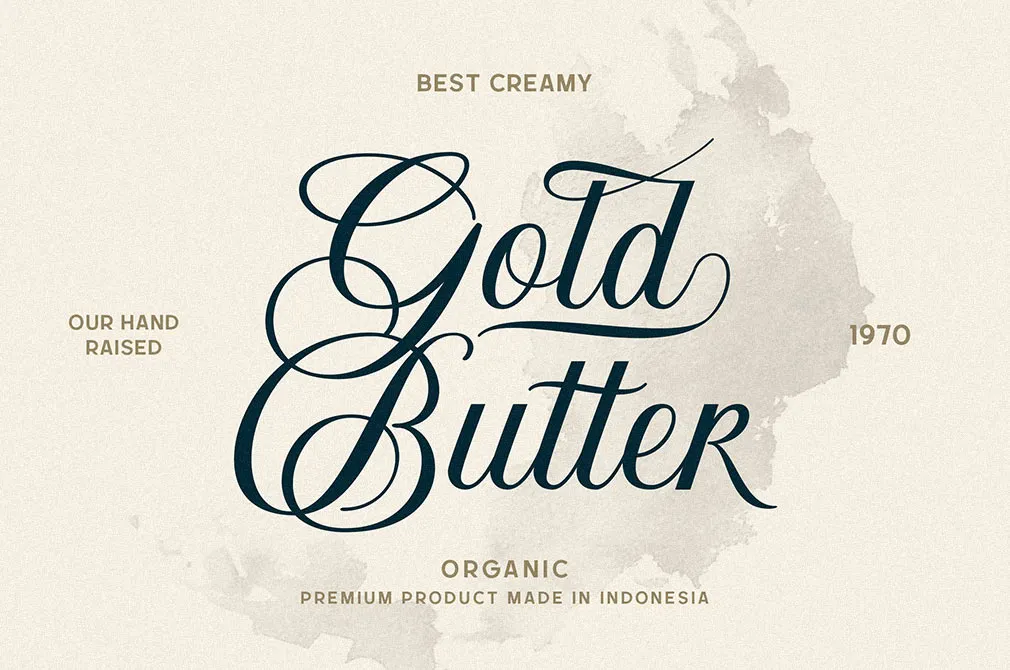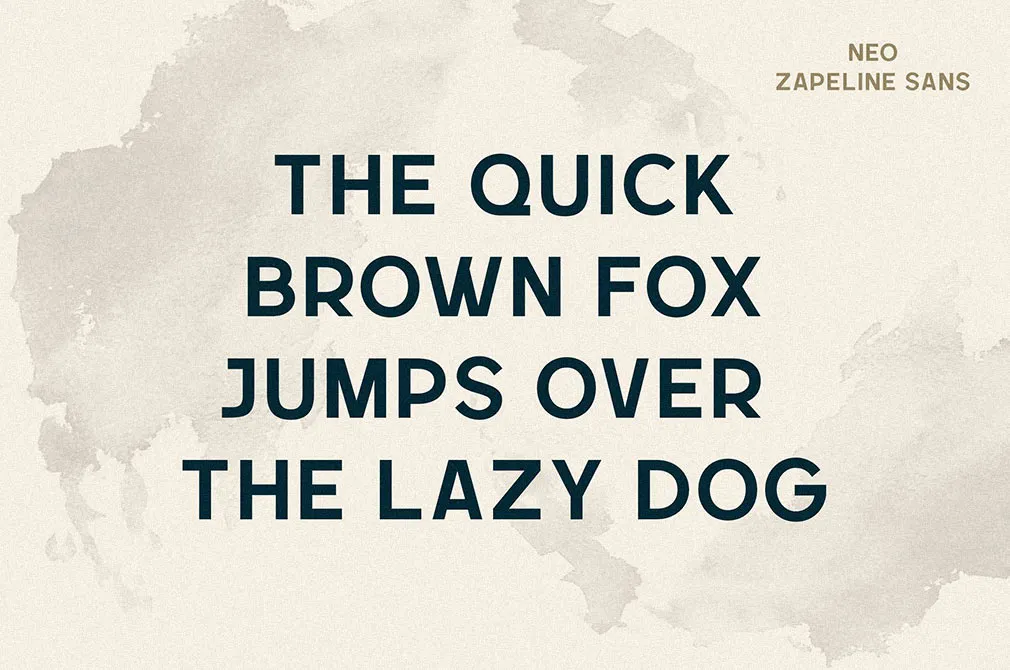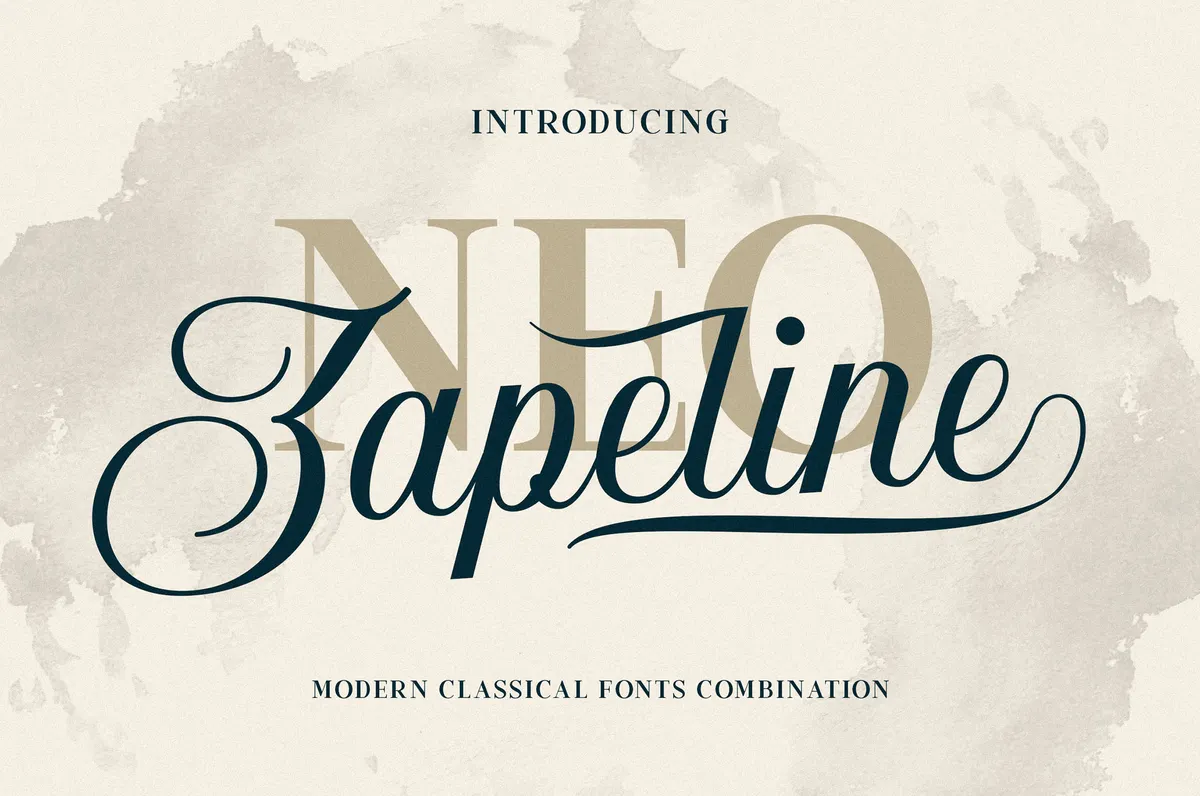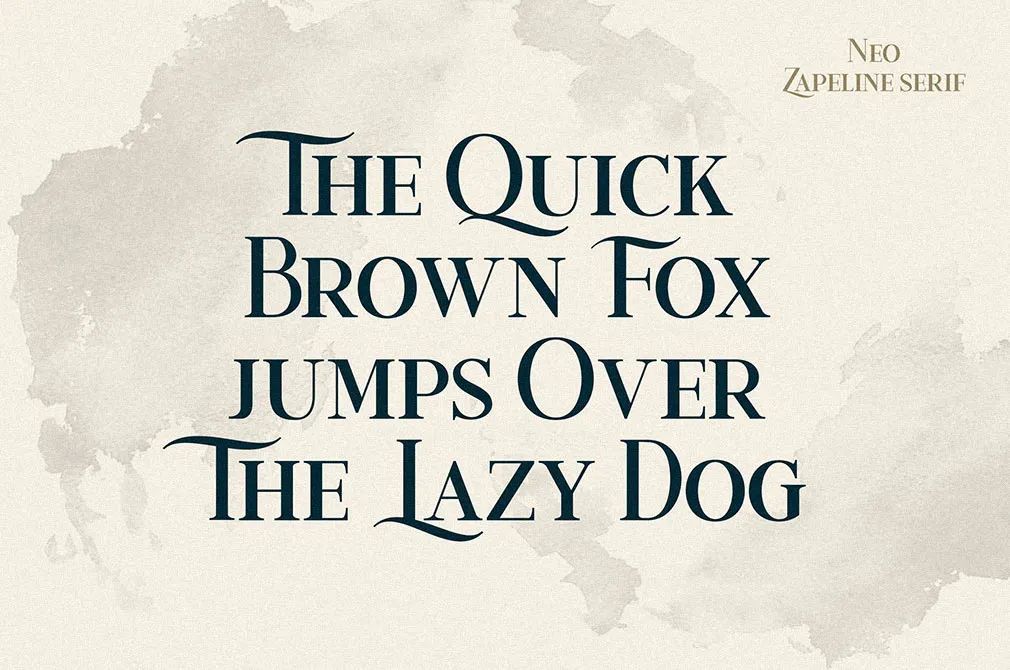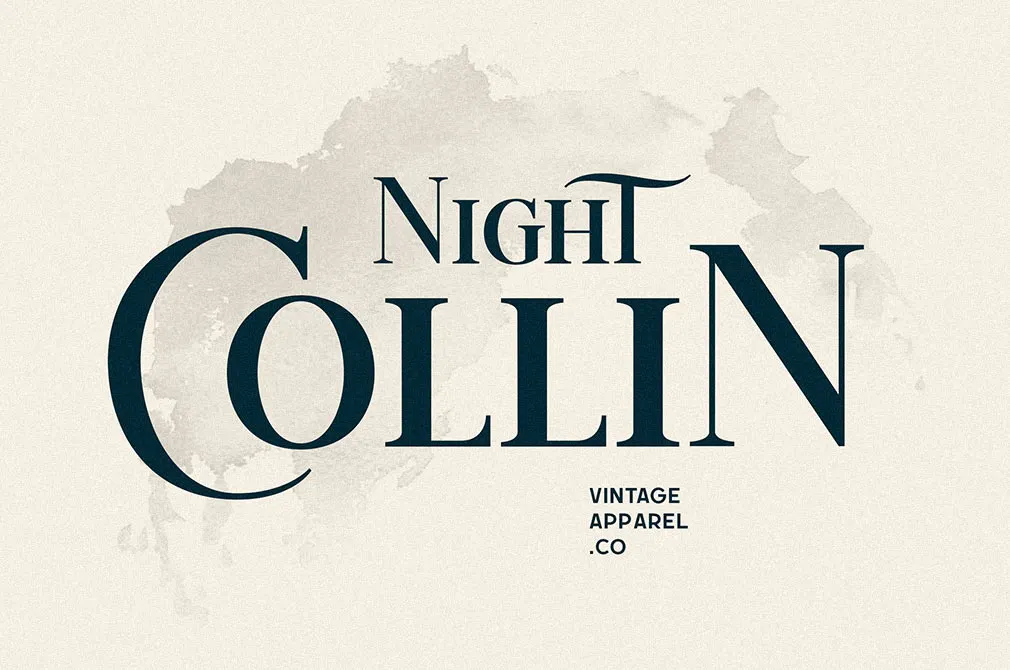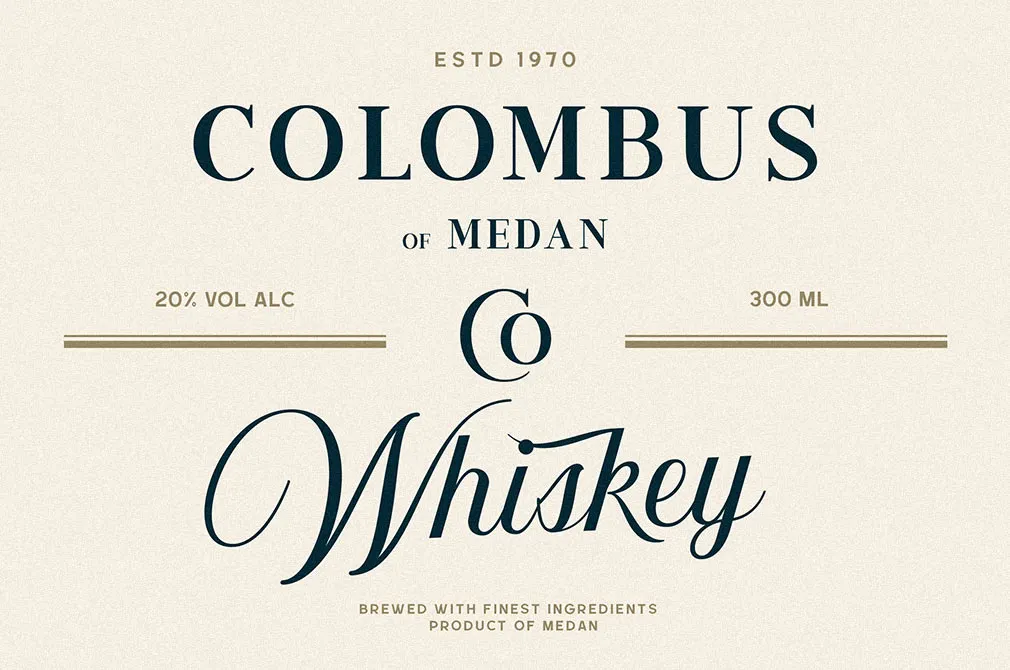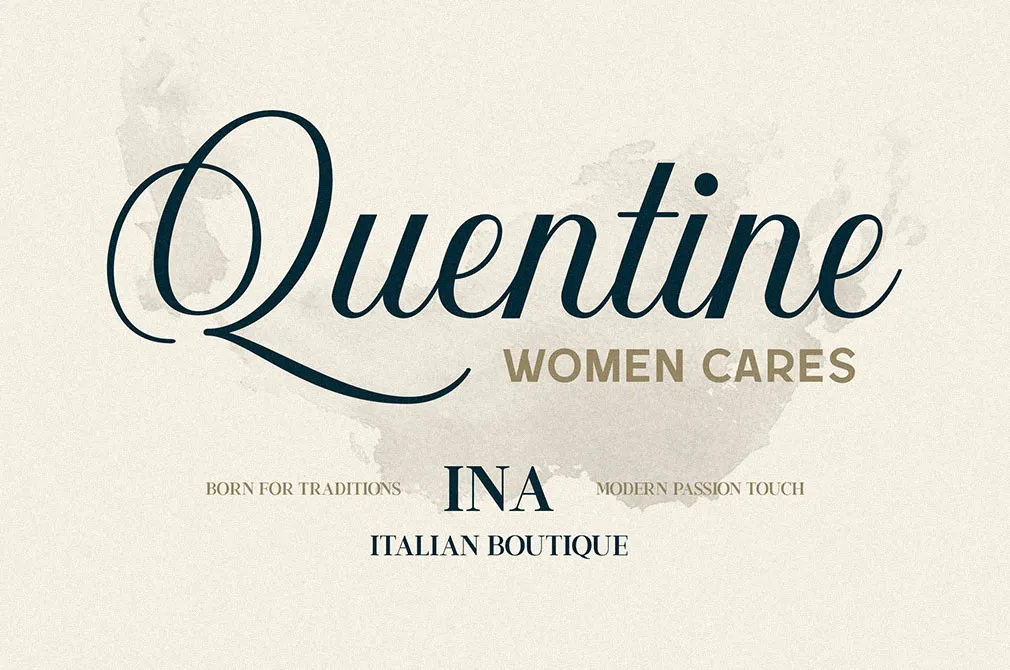
Neo Zapeline Font Family
Unleash the power of font combination! This one combines script, sans serif, and serif to create a perfect classic design with modern highlights. Pairing them won't be a crime but aesthetic art!
This font family comes with beautiful uppercase and lowercase, alternates, swashes, and multilingual support can there be something more splendid and generous? Neo Zapeline will come in handy for your design, logo, label, badges, apparel design, and many other fresh ideas of yours!